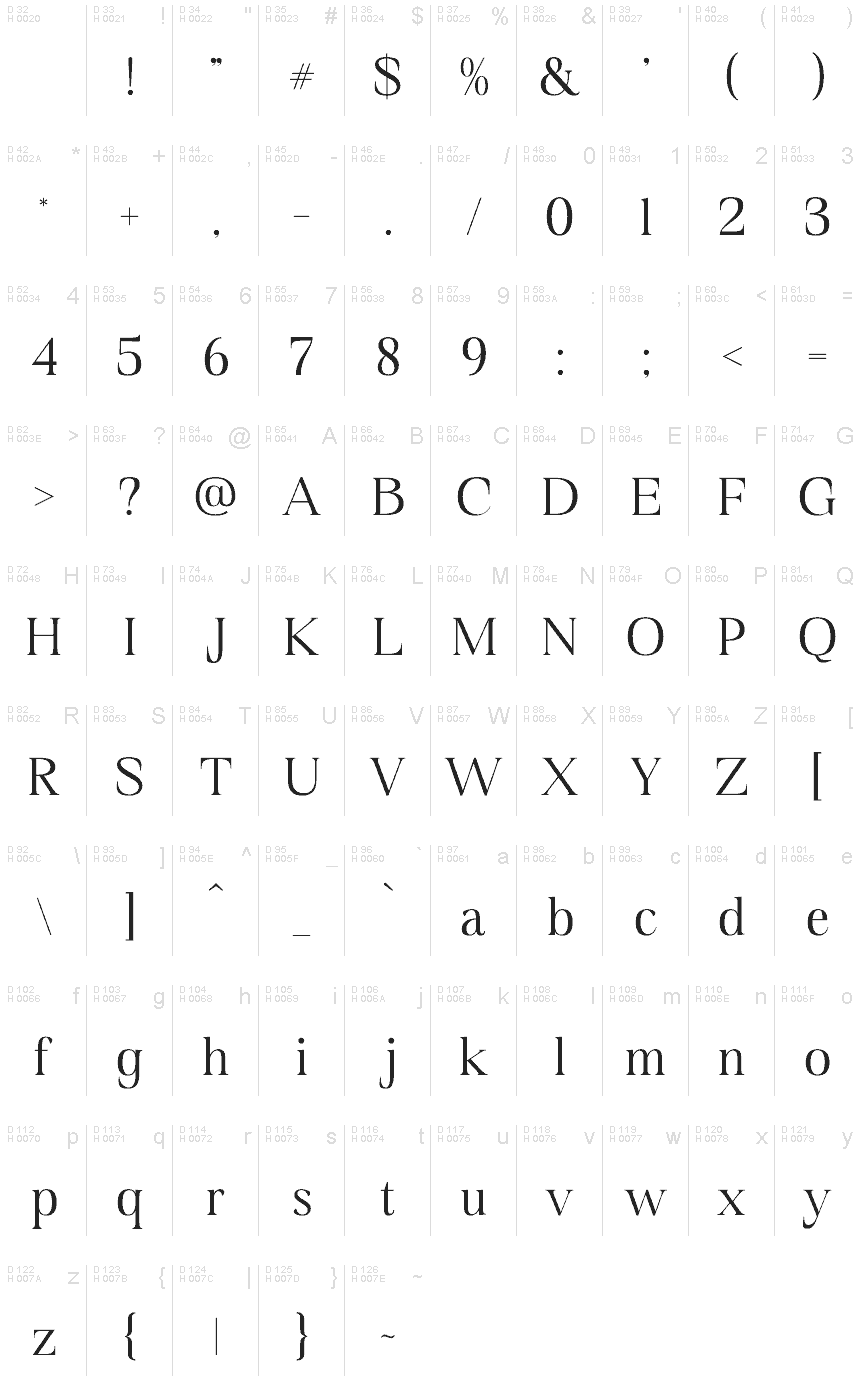
Bayoreh
Bayoreh font by Storytype Studio is an elegant typeface with a classic and refined look. Its sophisticated, formal design makes it an exceptional addition to any formal project. A free serif font exuberating quality and perfection, each character mimics the feel of printed letters that work together in superb harmony for a professional and dazzling appearance.
With its playful yet balanced shapes, Bayoreh is perfect for headlines and titles where some fun would be welcome. Use this classic resource for movie posters covers/subtitles, advertising projects, magazines, newspapers or bookmark stories where elegance is needed.